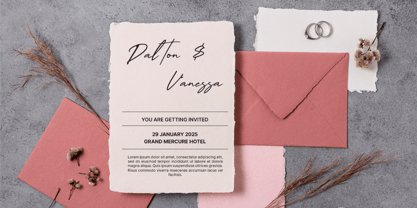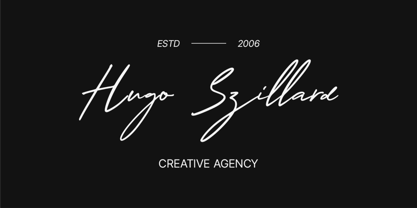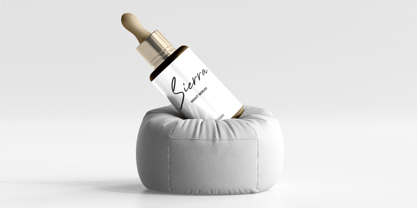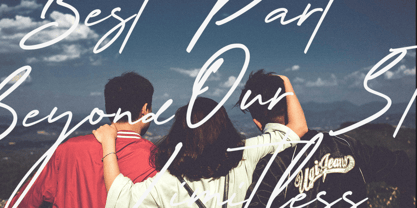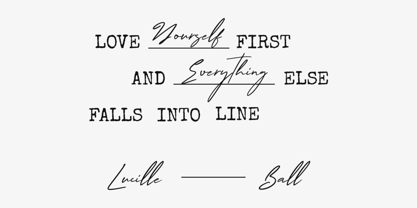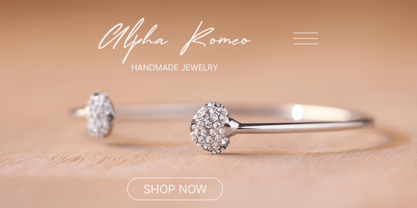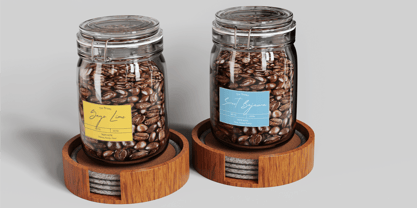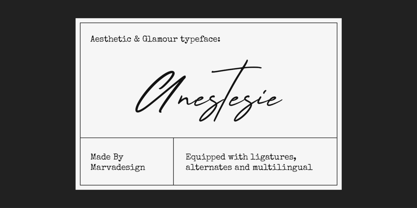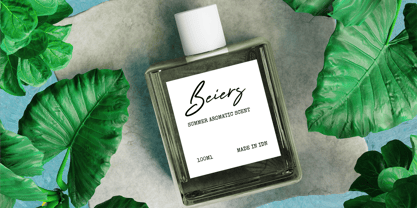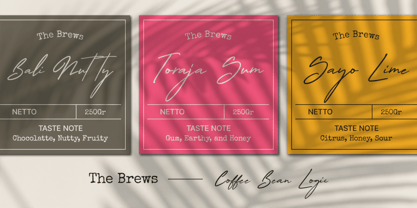
Anestesie
by Marvadesign
The Anestesie Font Family was designed by Febrie Setiawan and published by Marvadesign. Anestesie contains 1 styles. More about this family
Introducing New Brand Typeface Anestesie is a sophisticated and elegant handwritten script typeface that exudes luxury and refinement. Its smooth, flowing strokes create a natural yet polished look, making it perfect for high-end branding, product packaging, and creative designs. With built-in ligatures and alternates, this font allows for customization, giving each design a unique and organic feel. Additionally, its multilingual support ensures accessibility across various languages, making it a versatile choice for both local and international projects. Whether used for logos, invitations, social media content, or boutique packaging, Anestesie adds a touch of glamour and professionalism to any design.
Designers: Febrie Setiawan
Foundry: Marvadesign